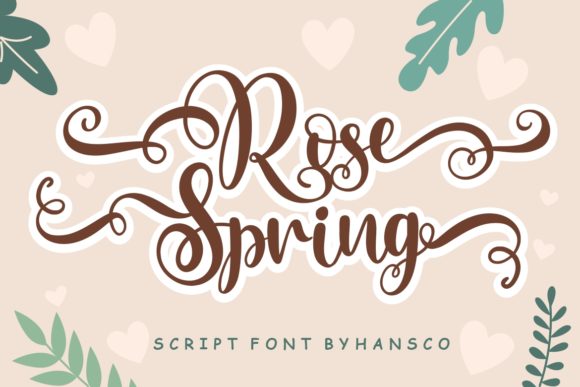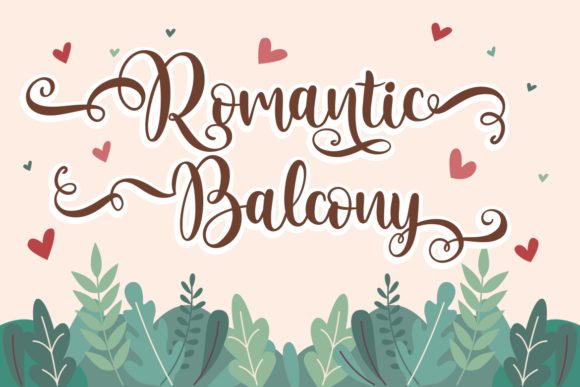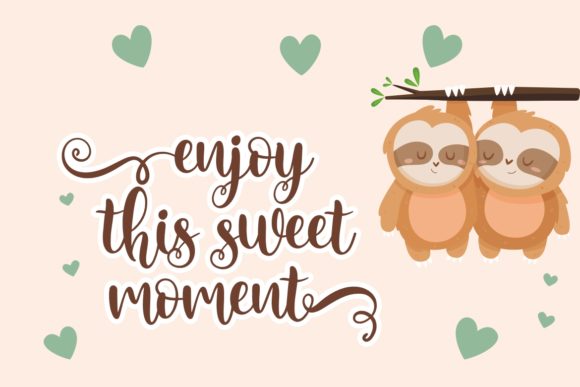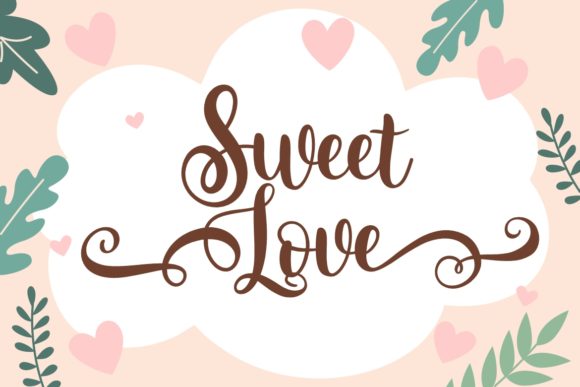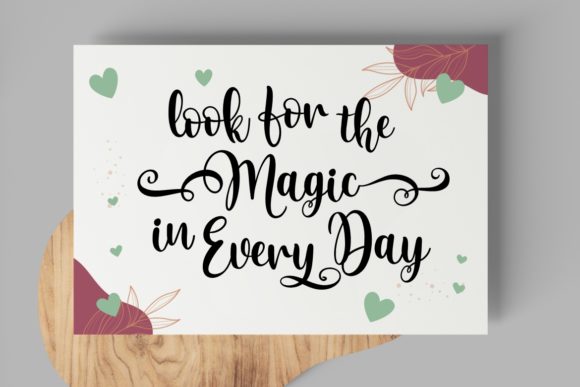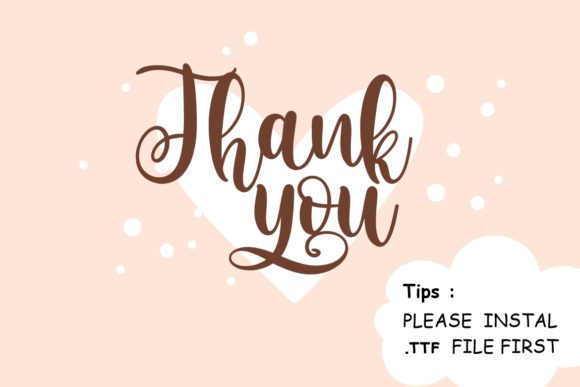
Rose Spring is a refined and chic handwritten font, meticulously crafted to become a beloved choice for various design projects. Its elegant and stylish appearance makes it a versatile font that can be applied in a wide range of creative endeavors. Whether you’re working on logos, wedding invitations, headings, t-shirts, letterhead, signage, labels, news, posters, or badges, Rose Spring will add a touch of sophistication and charm to your designs.
The fluid and graceful strokes of Rose Spring give it a timeless and classic appeal, making it suitable for both modern and vintage-inspired themes. Its handwritten nature adds an authentic and personal touch to your designs, conveying a sense of warmth and individuality.
For logos, Rose Spring will make your brand stand out with its unique and stylish look. It brings a touch of elegance and refinement, leaving a lasting impression on your audience and reinforcing your brand’s identity.
In wedding invitations, Rose Spring sets the perfect tone for romantic and intimate gatherings. Its delicate and refined style adds a sense of luxury and sophistication, making it an ideal choice for celebrating special moments of love and joy.
When used in headings, t-shirts, and letterheads, Rose Spring adds a touch of class and professionalism, elevating the overall design and making it more visually appealing.
In signage, labels, and news designs, Rose Spring adds a sense of artistry and creativity, making your messages more captivating and engaging to your target audience.
For posters and badges, Rose Spring’s elegant and stylish appearance will catch the eye of viewers, making your promotional materials more eye-catching and memorable.
The PUA encoding of Rose Spring makes it easy to access all the glyphs and swashes, giving you more creative freedom to customize your designs and add decorative elements as desired.
In conclusion, Rose Spring is an exquisite and stylish handwritten font that will elevate your design projects with its timeless elegance and charm. Its versatility allows it to be used in various applications, from logos and wedding invitations to posters and labels. With its PUA encoding, you can effortlessly access all the beautiful glyphs and swashes, enhancing the creative possibilities for your designs.